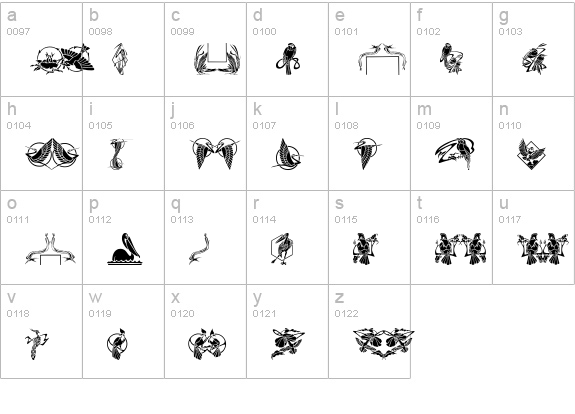
Introducing the captivating and whimsical Bird Stencil Design font, a delightful typeface that brings a touch of nature-inspired charm to your designs. This unique font features intricate bird silhouettes meticulously crafted into a stencil design, perfect for adding a playful and artistic element to any project. Bird Stencil Design font is not only visually stunning but also versatile, making it suitable for a wide range of creative endeavors such as branding, packaging, posters, and more. Its elegant yet fun style is sure to make your designs stand out and leave a lasting impression on your audience. The best part? Bird Stencil Design font is available for free download exclusively at FontsMarket.com. So why wait? Add a touch of avian flair to your designs today with this enchanting and eye-catching font.